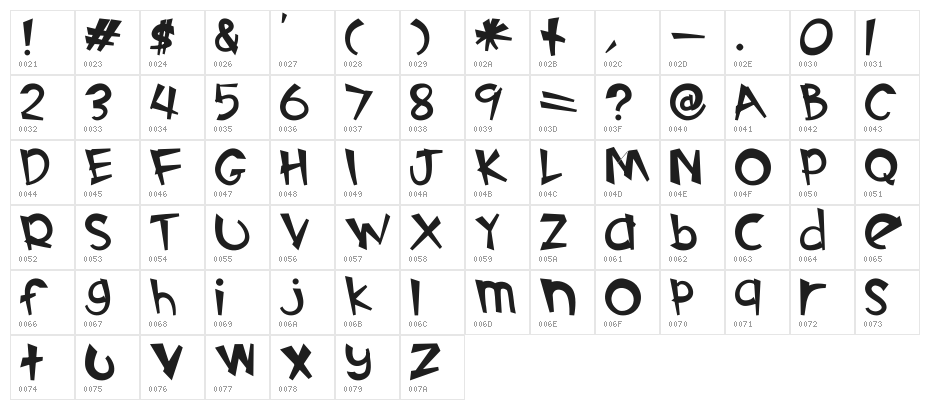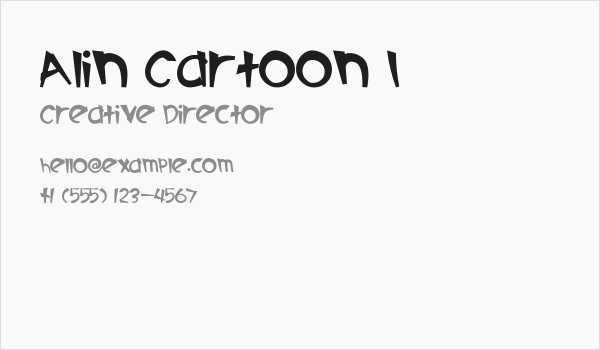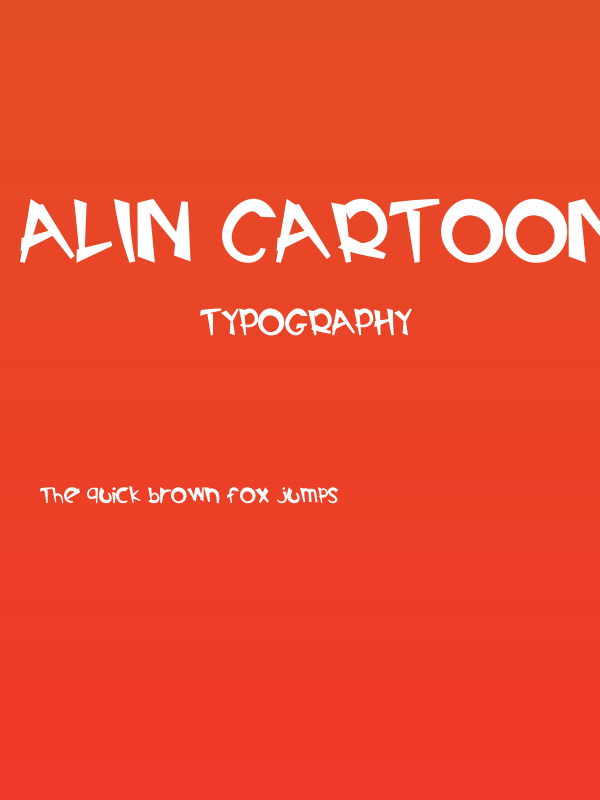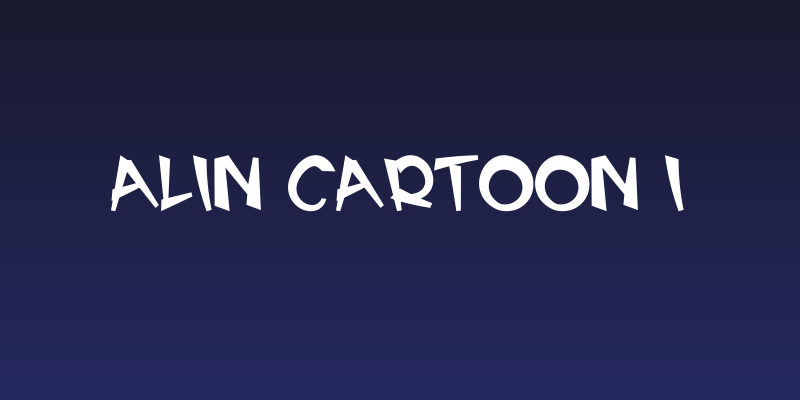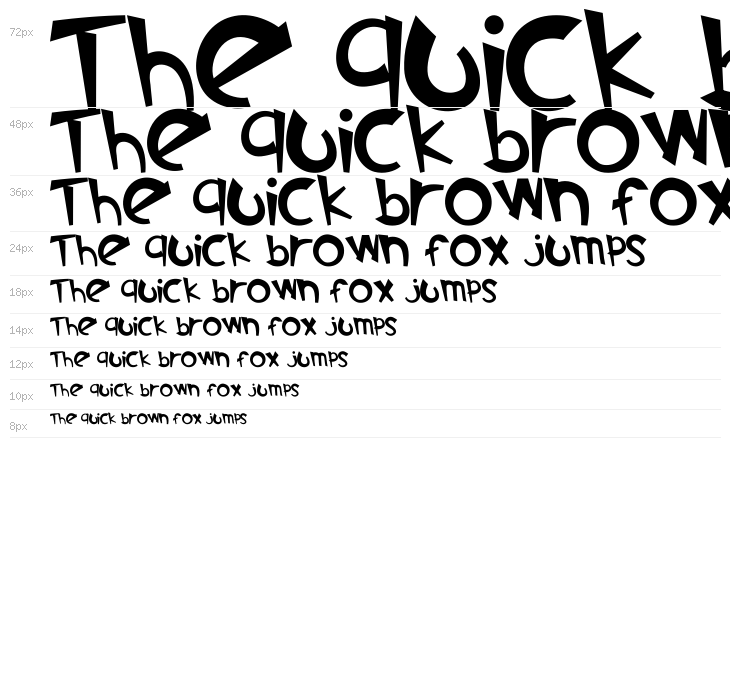
Alin Cartoon I Font
Alin Cartoon I Description
This playful and whimsical font features bold, irregular strokes that give it a lively and animated appearance. The letters are characterized by their uneven shapes and varying angles, creating a sense of movement and energy. The uppercase and lowercase letters maintain a consistent style, with exaggerated curves and sharp edges that add to the font's dynamic feel. Numbers and special characters follow the same playful design, making this font suitable for creative and informal projects. Its unique style is reminiscent of cartoon lettering, making it ideal for projects that require a fun and engaging visual element.
Overall StyleCartoon, Playful, Whimsical
Proposed ProjectsIdeal for children's books, comic strips, playful branding, and animated video titles.